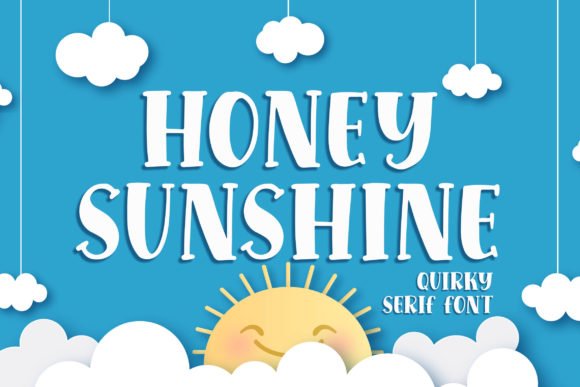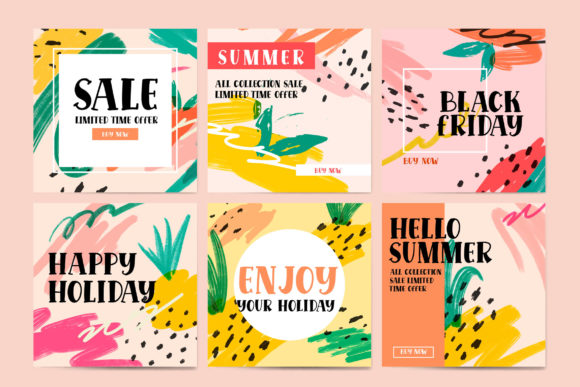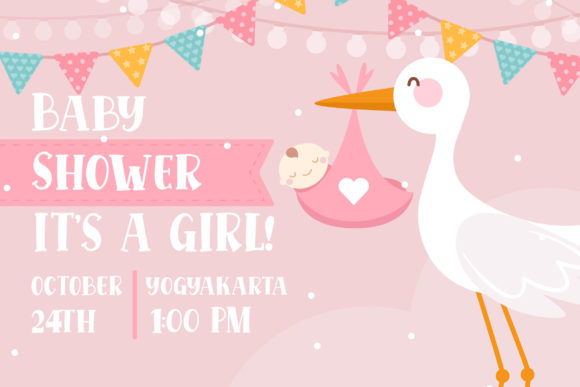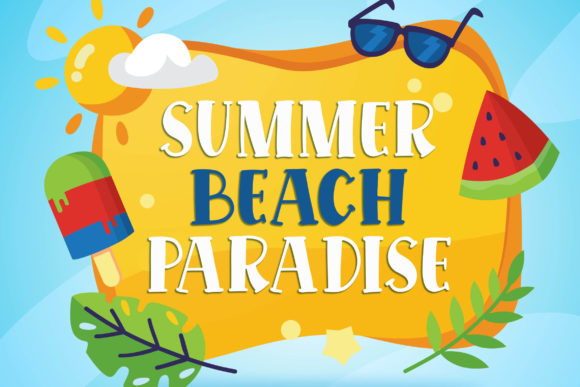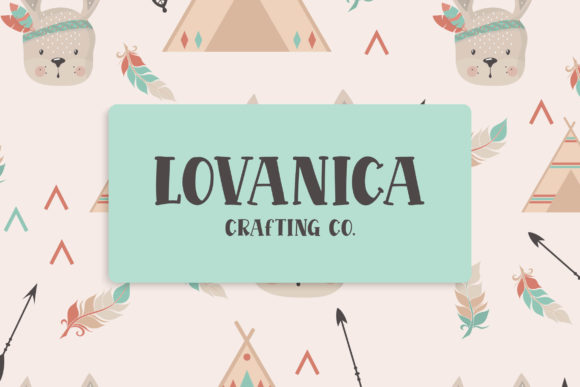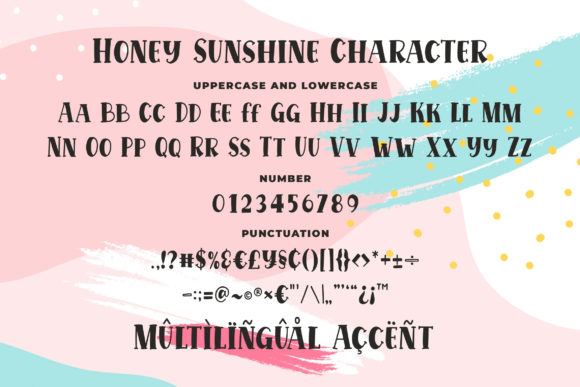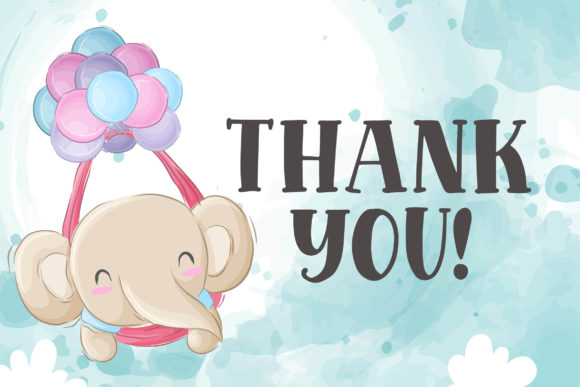
Discover Your Inner Sunshine with the Honey Sunshine Font
Remember that moment when you stumbled upon the perfect color palette for your latest design project? The one that made everything fall into place, and you couldn’t wait to bring it to life? For designers, those ‘aha’ moments are the best – and we’re excited to share one with you today.
Meet the Honey Sunshine Font, a vibrant and playful display font that’s sure to brighten up any project. This fun and dynamic font is perfect for adding a touch of whimsy to your designs, and its versatility makes it a valuable addition to any font library. Whether you’re working on a craft project, creating a social media graphic, or designing a brand identity, the Honey Sunshine Font is sure to shine.
Honey Sunshine Font Key Features
- Font Family: Honey Sunshine Font is a modern, hand-drawn font designed to evoke a sense of warmth and happiness.
- Unique Characteristics: Features a unique blend of hand-drawn and digital elements, resulting in a distinctive and eye-catching aesthetic.
Honey Sunshine Font Review
I recently had the chance to work with the Honey Sunshine Font, and I must say it’s a unique and charming addition to any design project. Here are my honest thoughts on what works well and what doesn’t:
- Quirky, Handwritten Feel: Honey Sunshine Font has a lovely, hand-drawn quality that’s perfect for adding a personal touch to your designs.
- High-Quality Typography: The font is well-crafted and displays beautifully at various sizes and resolutions.
- Emotional Connection: The font’s playful and optimistic vibe can evoke feelings of warmth and happiness in your audience.
- Limited Customization Options: While the font’s quirks are part of its charm, they can also make it challenging to customize and adapt to different design styles.
- Not Suitable for Formal Settings: Honey Sunshine Font’s playful nature may not be the best fit for formal or professional designs.
Honey Sunshine Font is a delightful addition to any design project that requires a touch of whimsy and personality. While it may have some limitations, its unique charm and high-quality typography make it a great choice for creative and playful designs.
Tips for Getting the Most Out of the Honey Sunshine Font
For best results, use the Honey Sunshine font in designs that require a playful, whimsical touch. This font is perfect for:
- Birthday invitations and party decorations
- Wedding stationery and decorations
- Children’s book illustrations and educational materials
The Honey Sunshine font is commonly used in:
- Children’s product packaging
- Event and party decorations